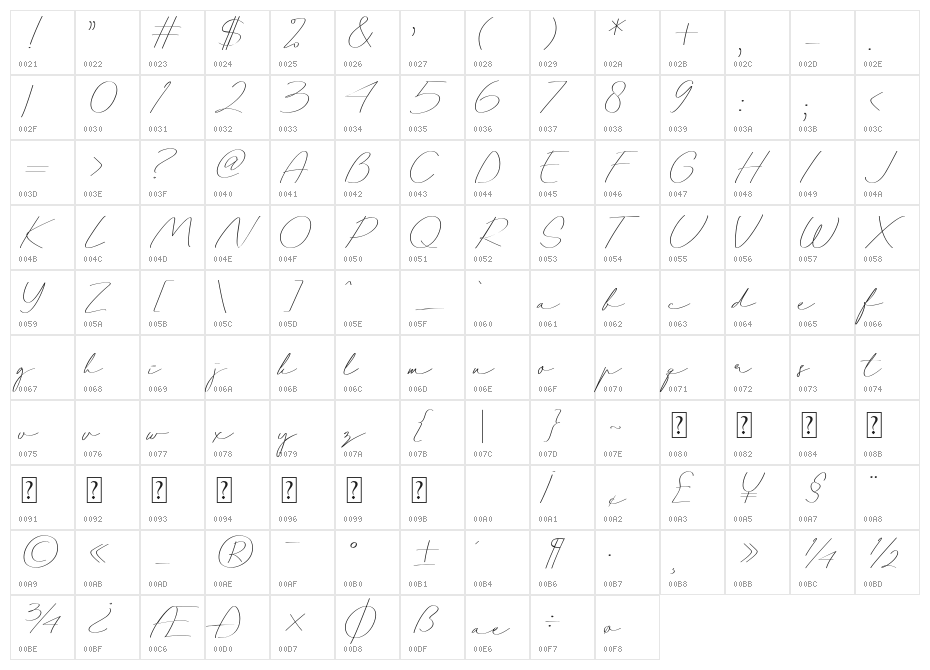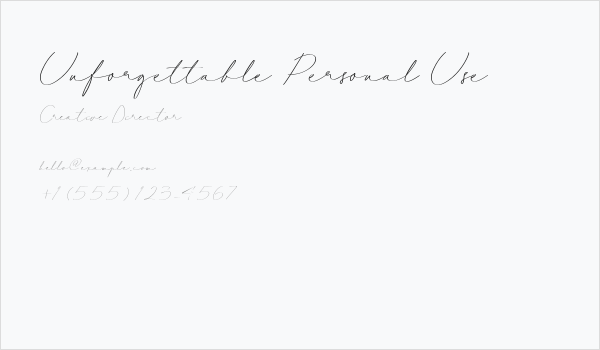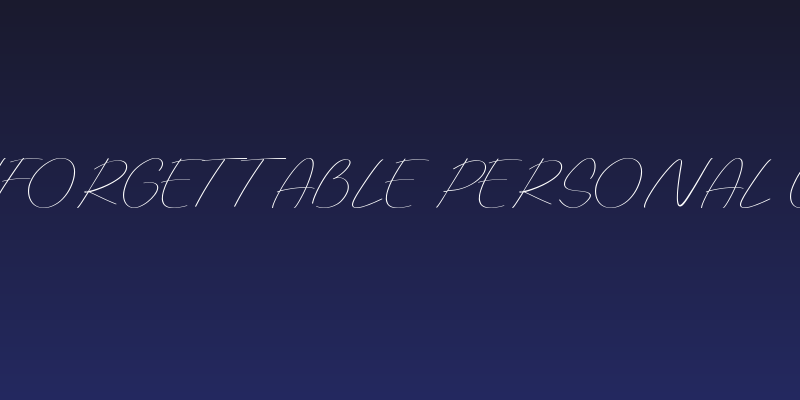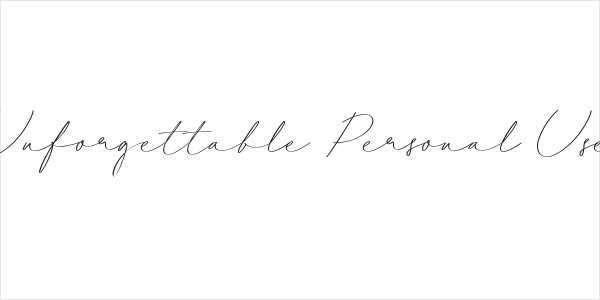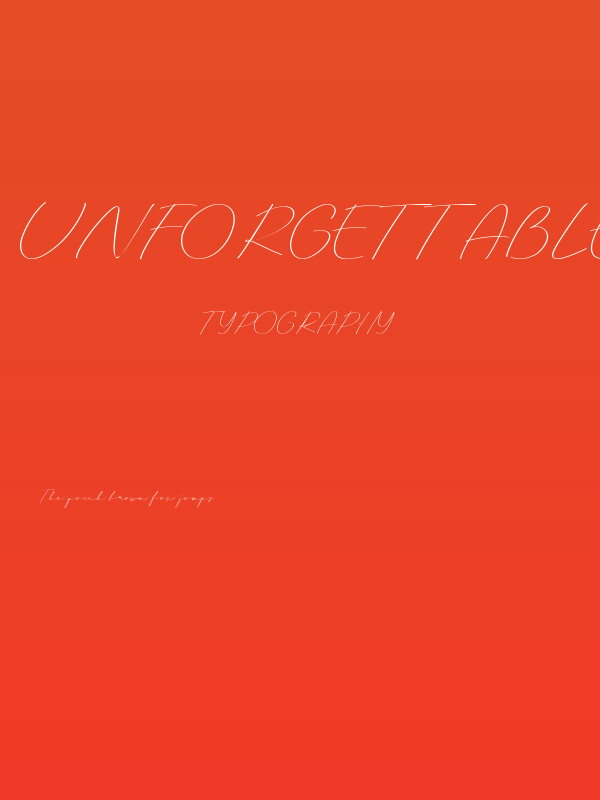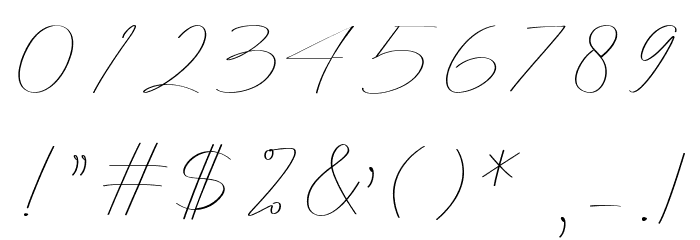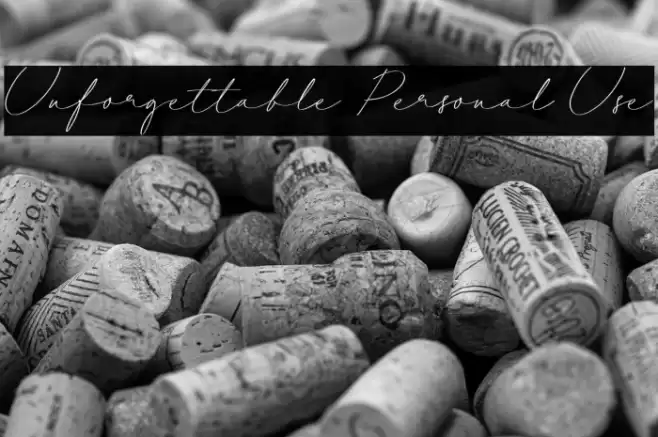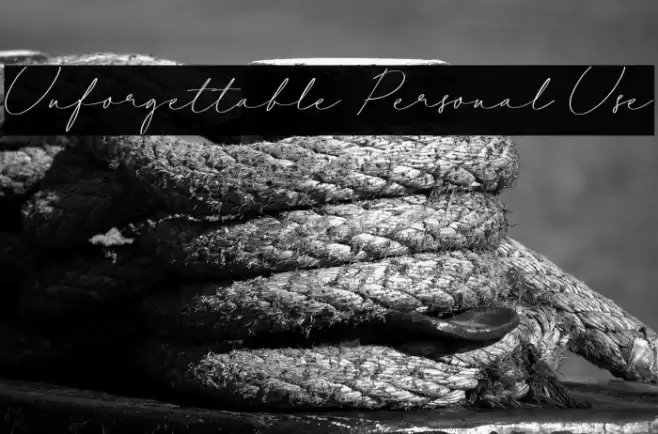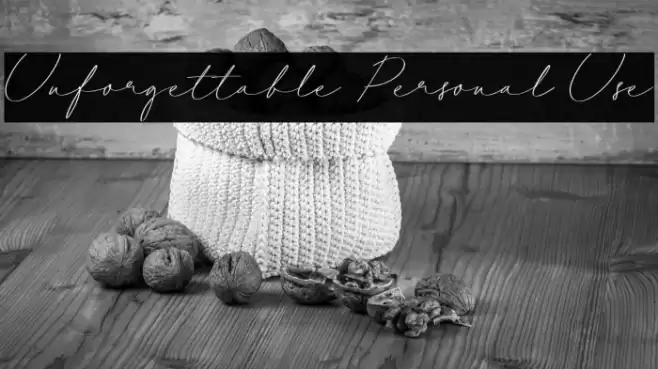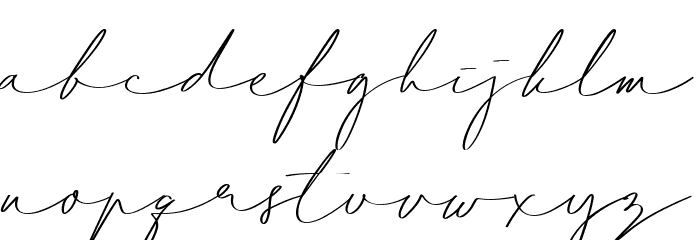
Unforgettable Personal Use Font
| Estilo geral | Elegant |
| Caso de uso | Logos, Invitations, Personal Branding |
| Projetos propostos | Ideal for wedding invitations, personal branding, elegant stationery, and artistic projects. |